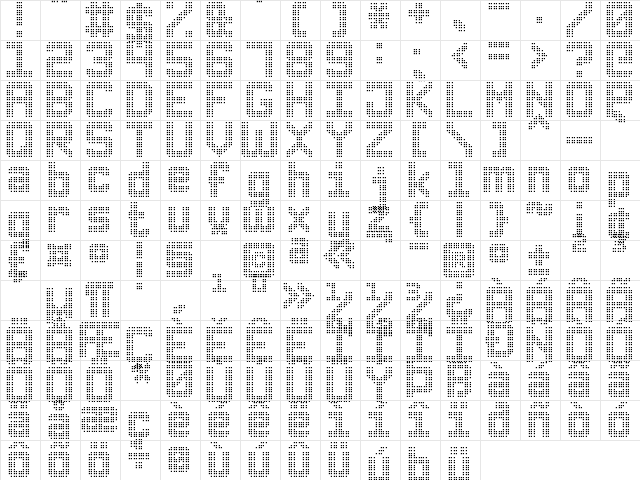
Triple Dot Digital-7 Regular
Design Context for Triple Dot Digital-7 Typeface
Triple Dot Digital-7 channels digital-age aesthetics through its sharp, structured letterforms — ideal for brands that want to signal innovation.
Pro Tip: Use Triple Dot Digital-7 in combination with a neutral sans for body text. Let it define the brand voice in headlines while keeping reading comfortable elsewhere.